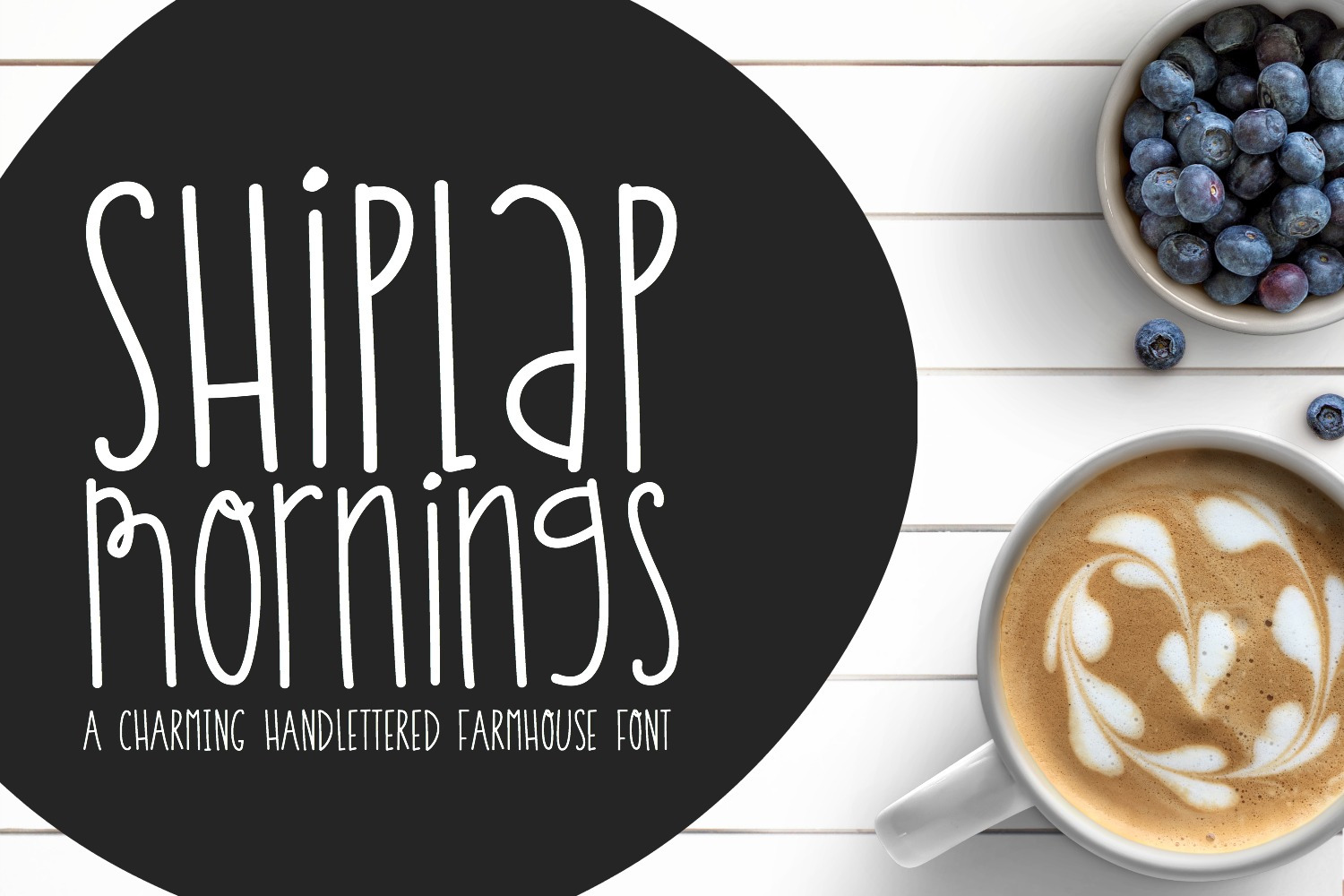
Shiplap Mornings Handwritten Font
Shiplap Mornings Handwritten Font is a simple skinny font with a quirky side! Use all caps for an elegant, chic farmhouse decor look. Use lowercase or Mix lowercase with capitals to create a more spunky, youthful look!